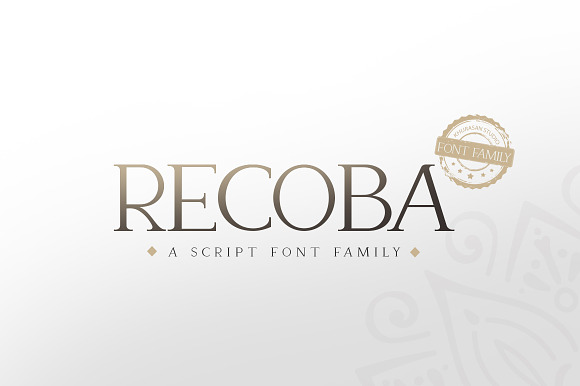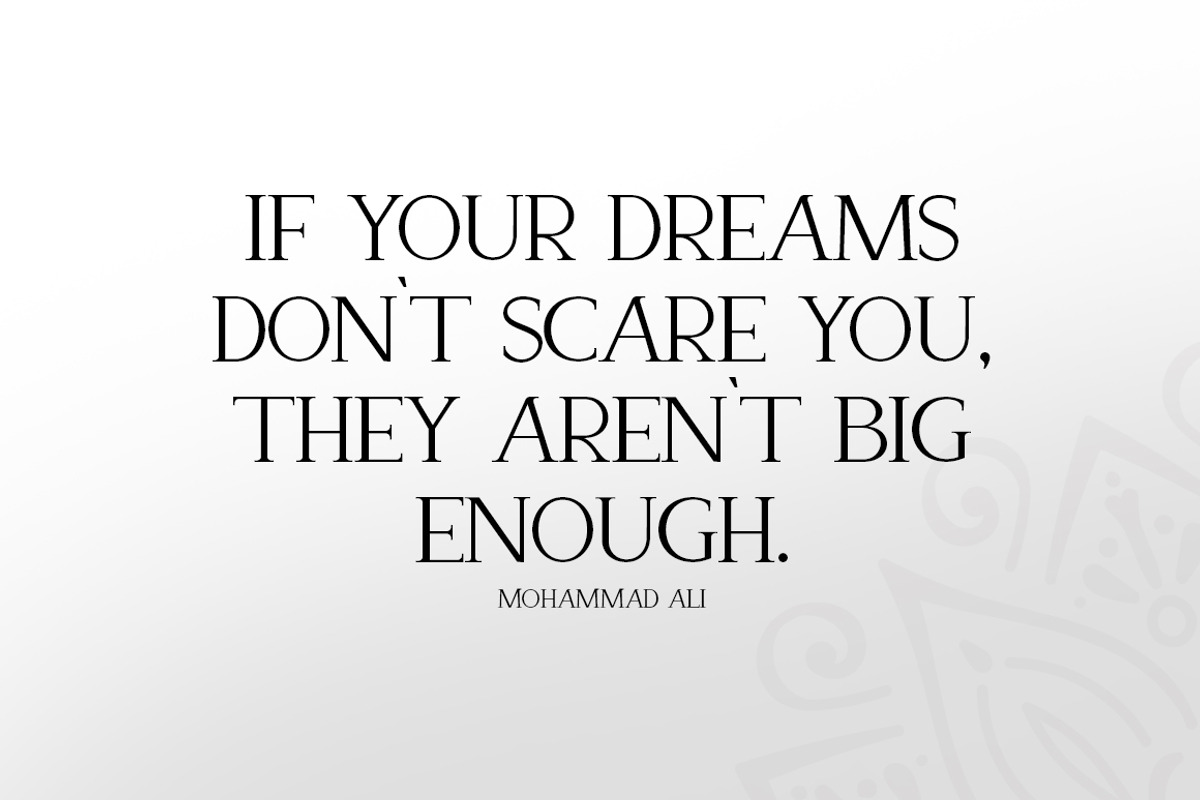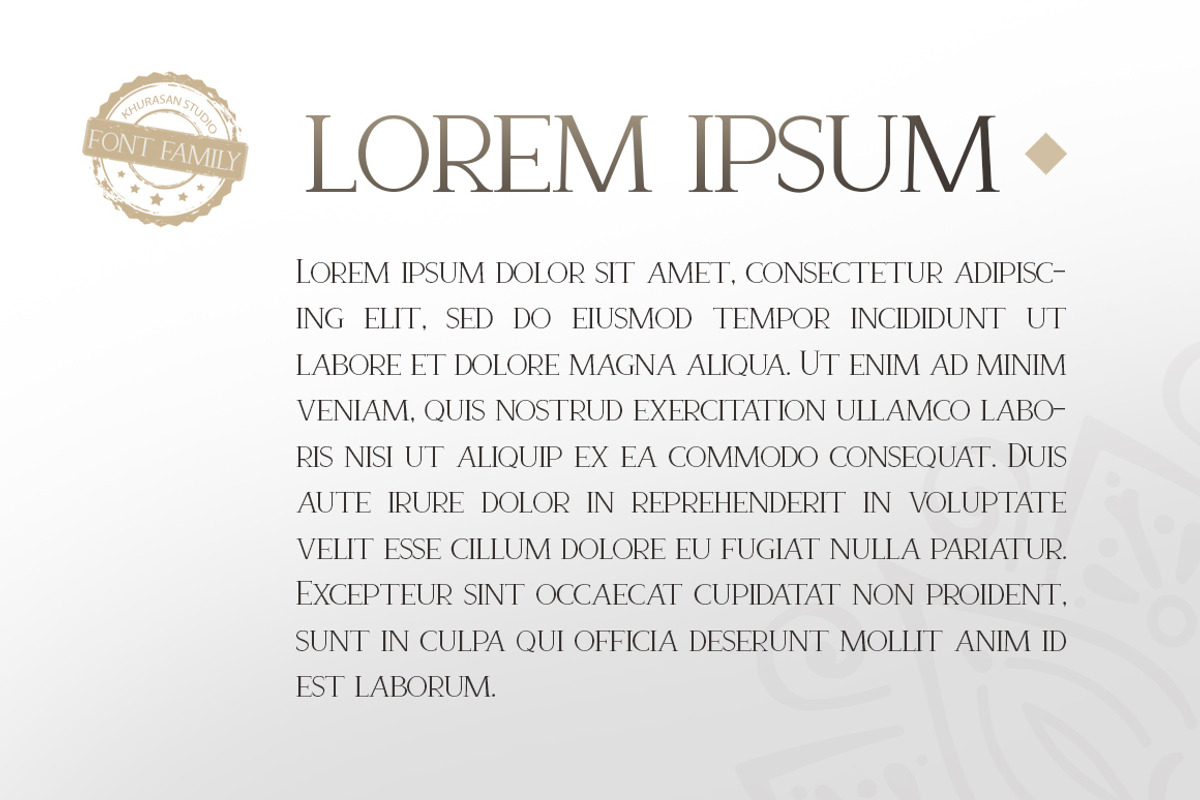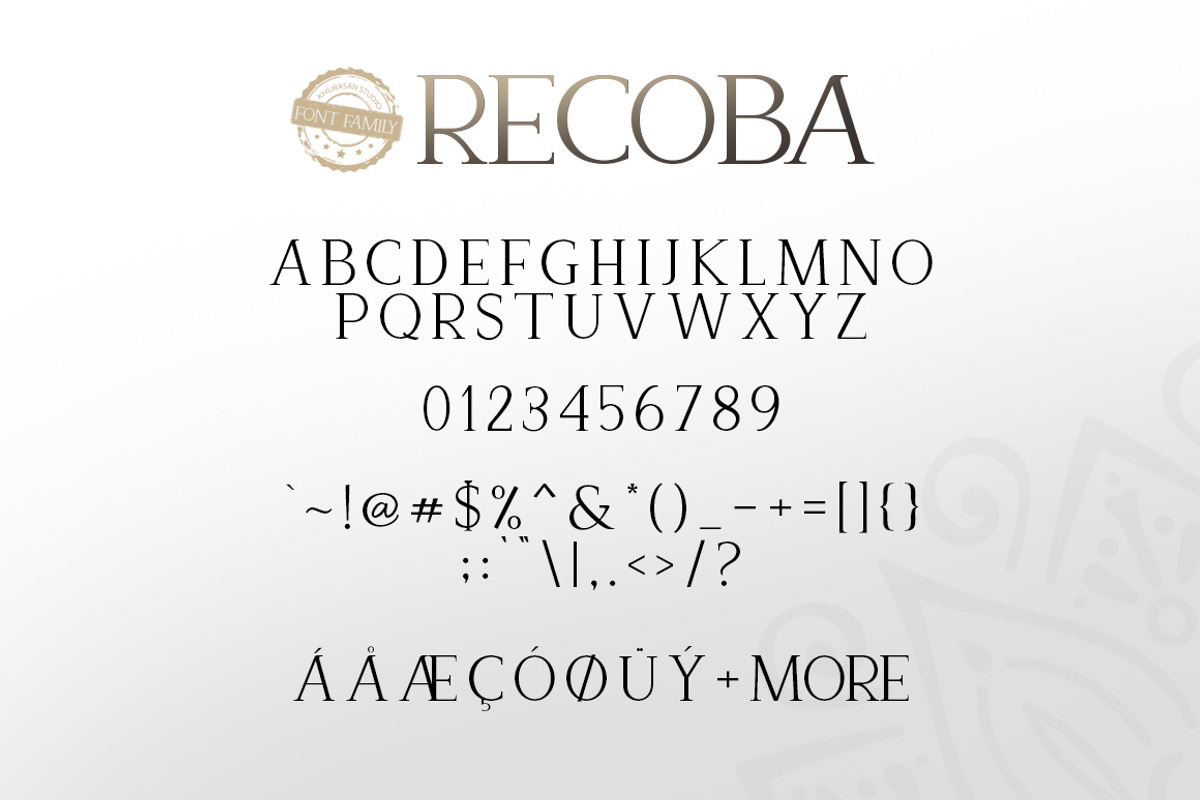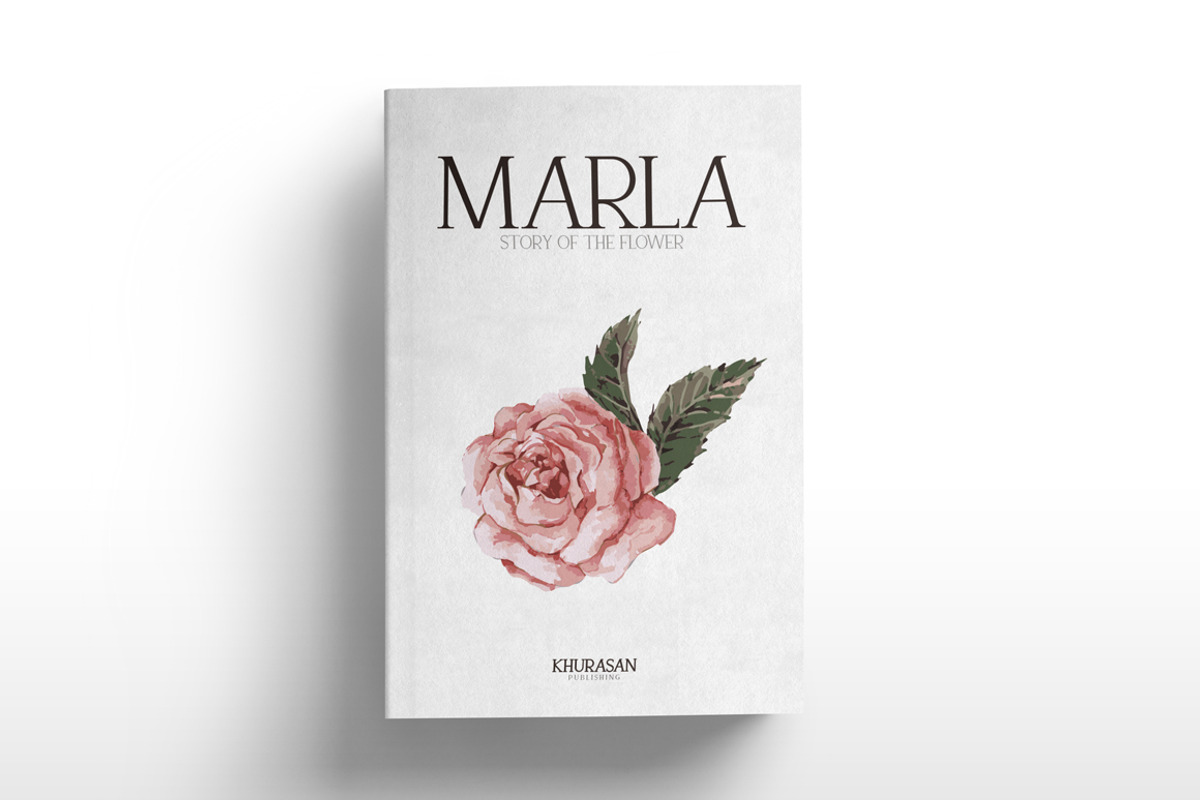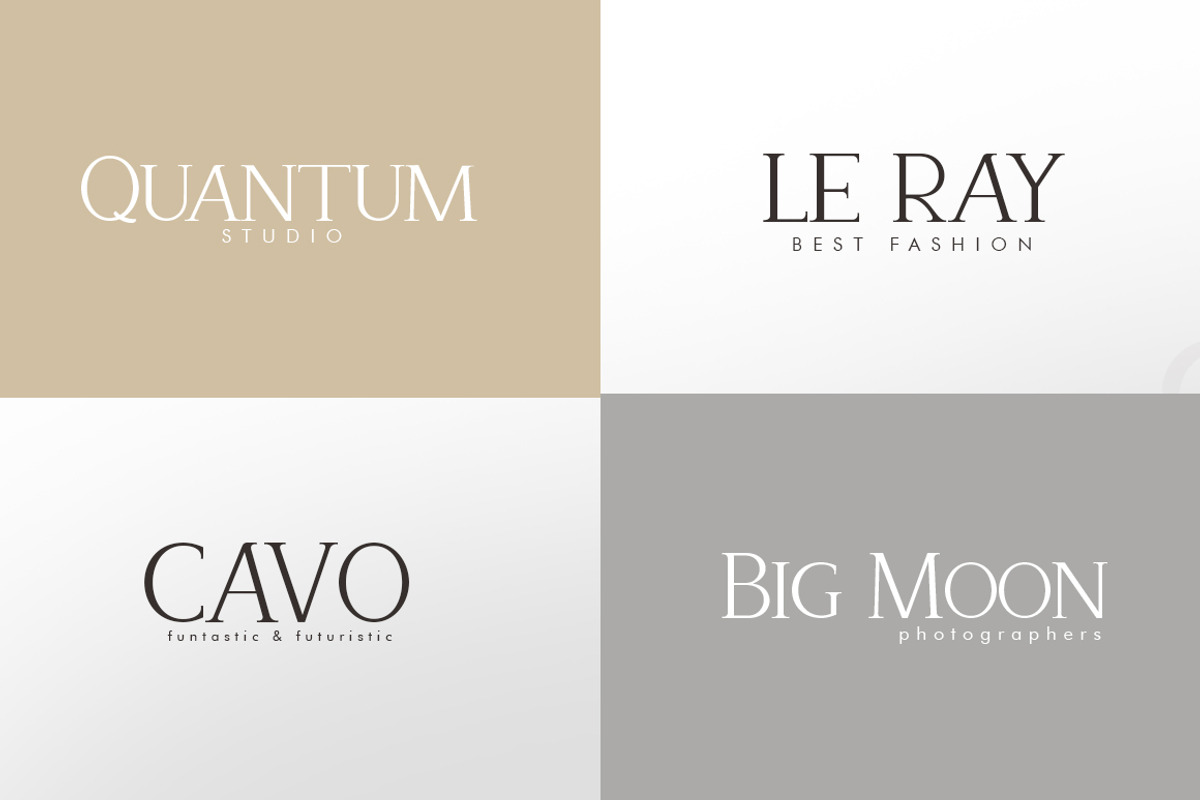
Recoba Font Family
The Recoba font is elegant and charming serif typeface both modern and gorgeous. Recoba has 3 different styles. Recoba font it’s perfect for , poster, logo, magazine, cover, banner, tshirt and headers, or even large-scale artwork.
Recoba Font Family by khurasan fits naturally into Branding, posters, packaging, typography.